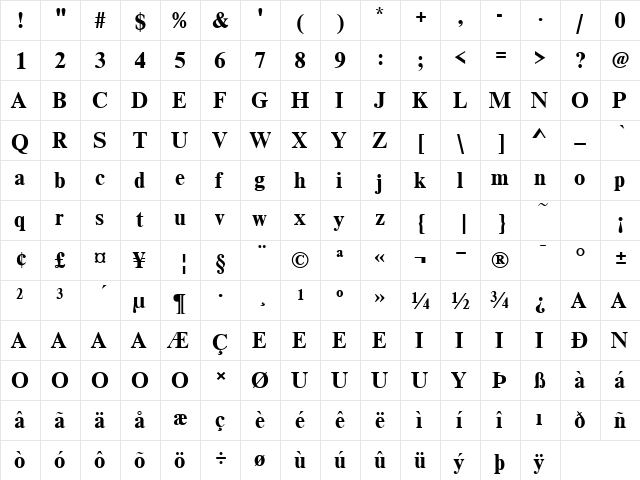
WestTimesSSK Bold
Design Context for WestTimesSSK Typeface
WestTimesSSK takes a measured approach to typography — its balanced proportions and neutral character make it a reliable workhorse for both digital and print work. The heavy weight commands attention and anchors typographic hierarchies.